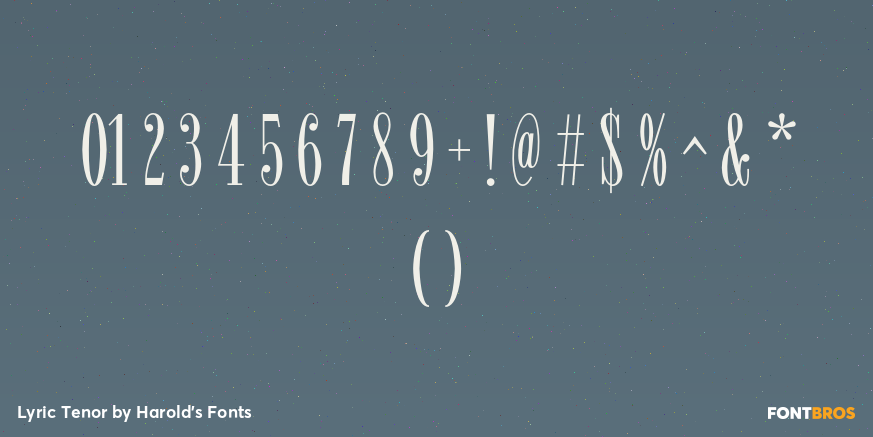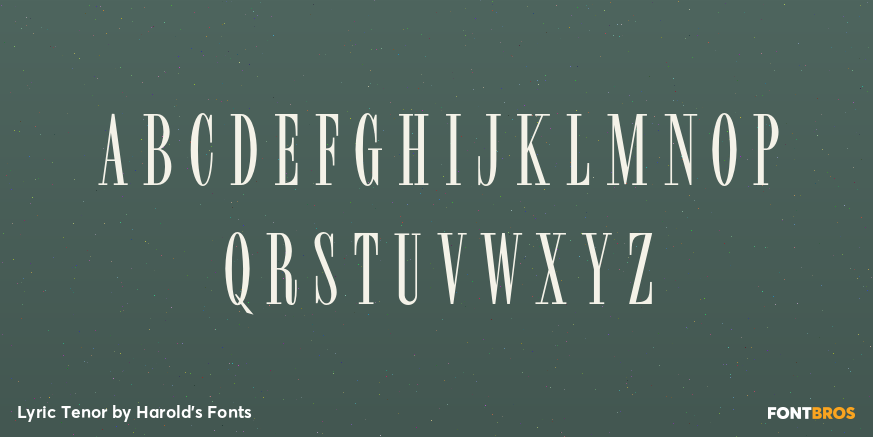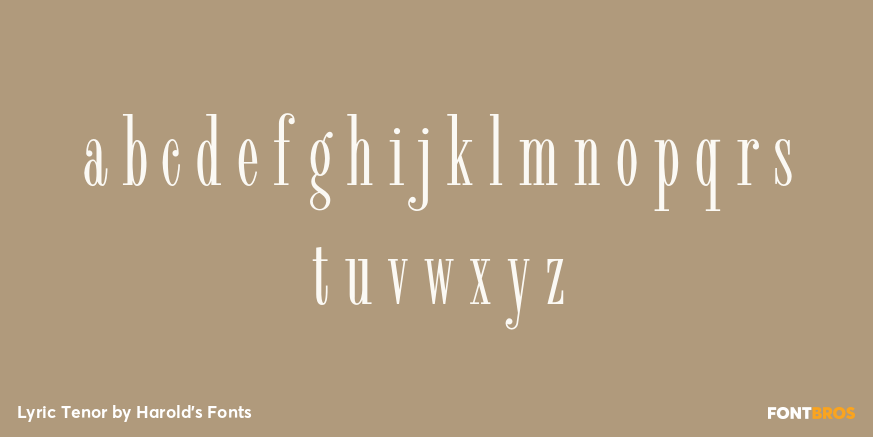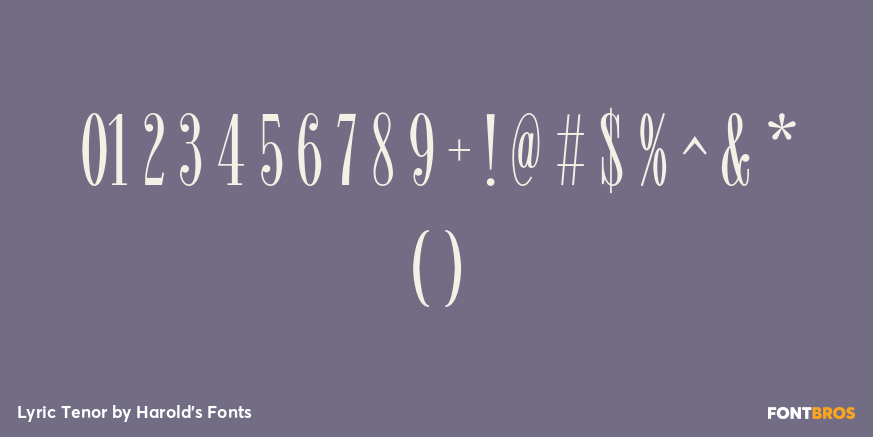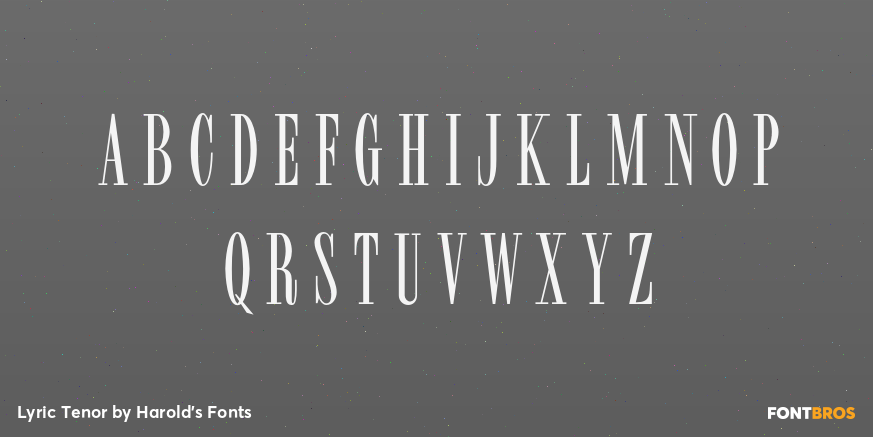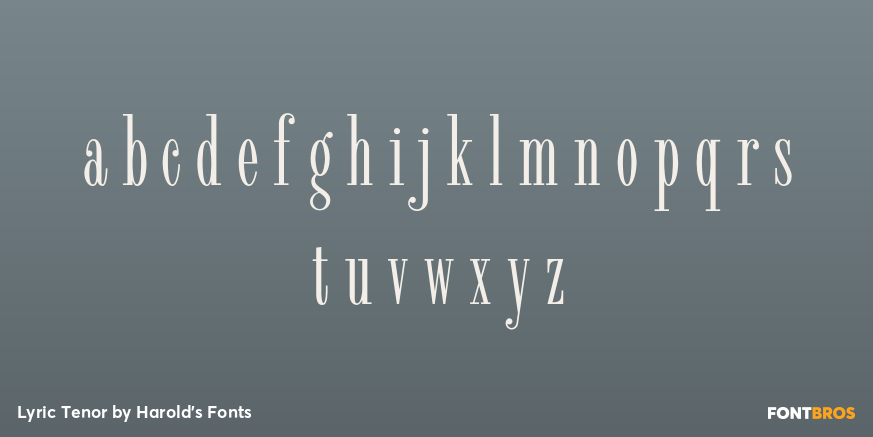
Lyric Tenor
LYRIC TENOR is a very condensed font with the contrasting strokes and unbracketed serifs of a Didone or modern font. And it has a graceful and elegant matching italic that can be used together or separately.
LYRIC TENOR was inspired by an example of an analog font simply called Tenor that apparently existed as an italic only.